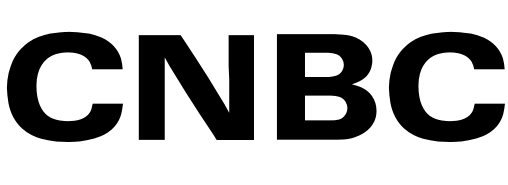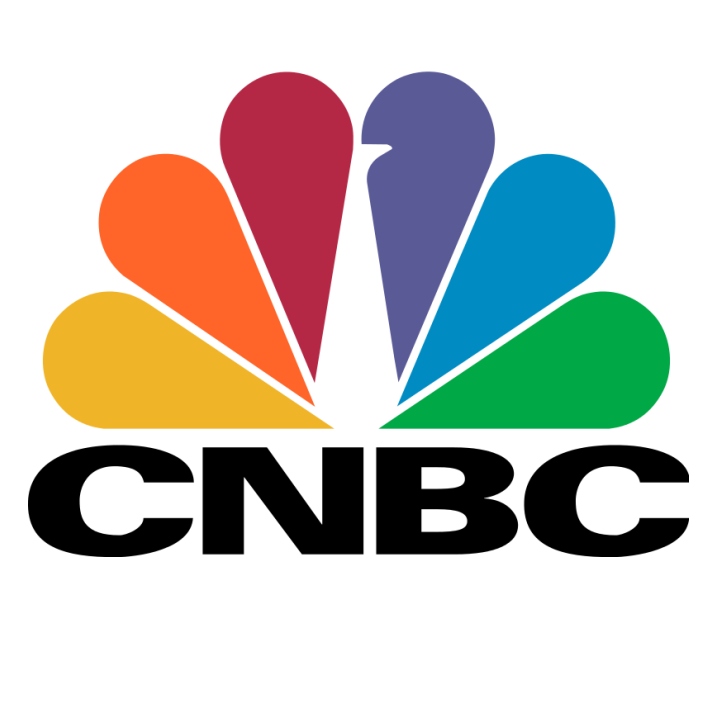
CNBC Logo Font
Fonts in UseCNBC is an American cable and satellite business news television channel. It provides real-time financial market coverage, business news, and expert analysis to its viewers.
The CNBC logo features a font that resembles Univers 73 Black Extended, which Swiss designer Adrian Frutiger created as a widely-used humanist sans-serif typeface. The font family received an update in 1997 for use in the Alte Pinakothek in Munich, resulting in the creation of Frutiger Next.